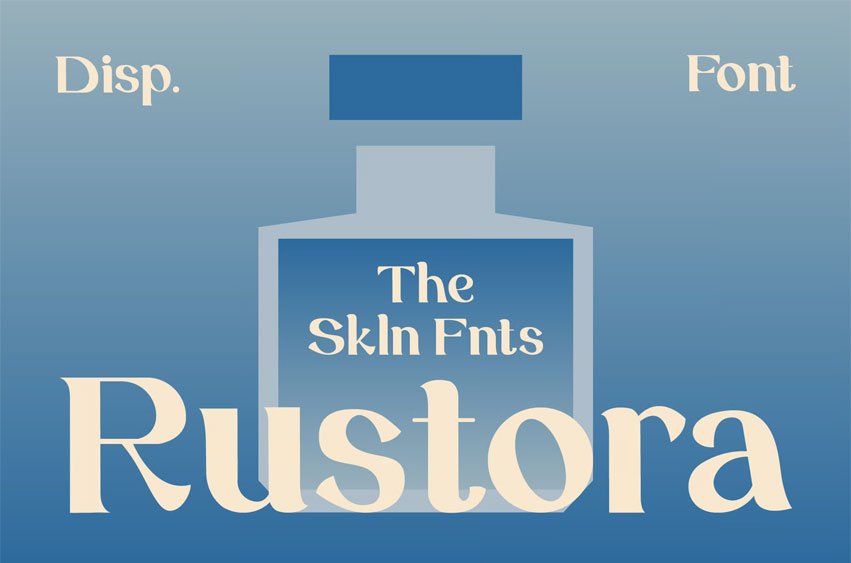
Rustora Font is an elegant serif display typeface inspired by classic European typography and vintage botanical labels. It combines refined proportions, graceful curves, and distinctive high-contrast letterforms to create a sophisticated visual presence with a timeless character.
Carefully crafted with decorative serif details and balanced spacing, Rustora delivers a harmonious blend of tradition and modern refinement. Its expressive shapes, stylish alternates, and ornamental touches give the typeface a cultured, artistic personality while maintaining excellent readability.
- Elegant Vintage Serif Display Typeface
- Smooth High-Contrast Letterforms
- Refined, Sophisticated, Timeless Character